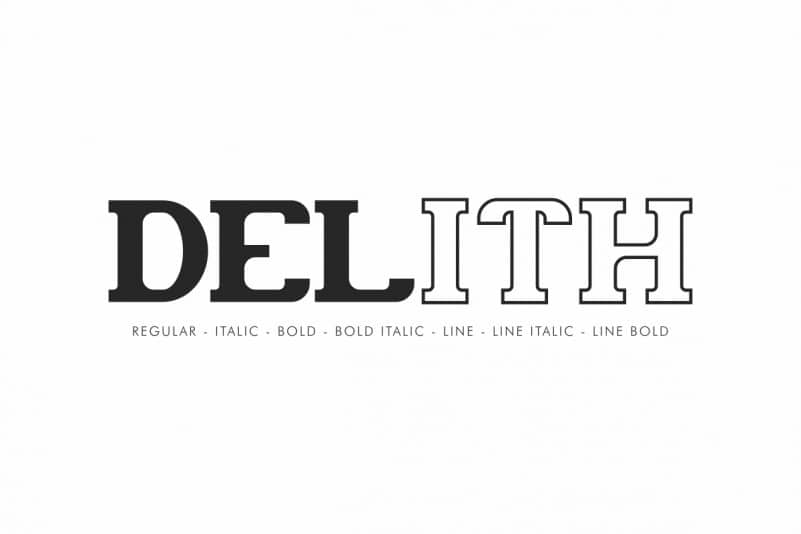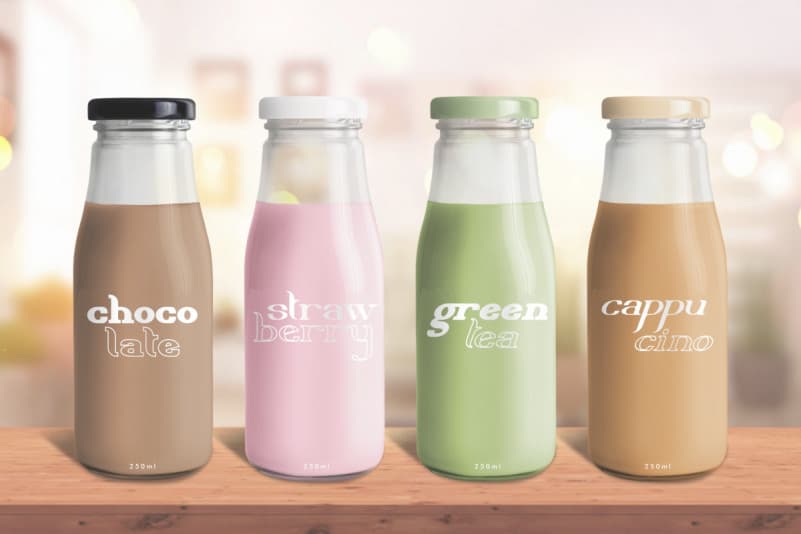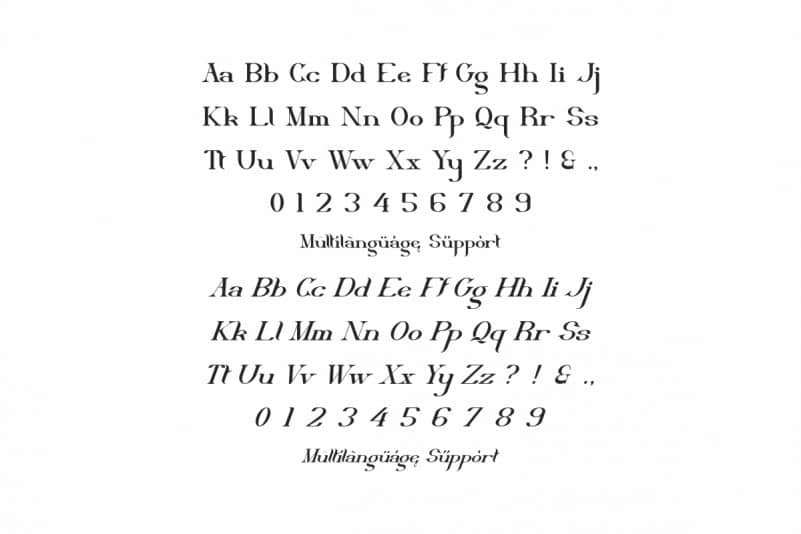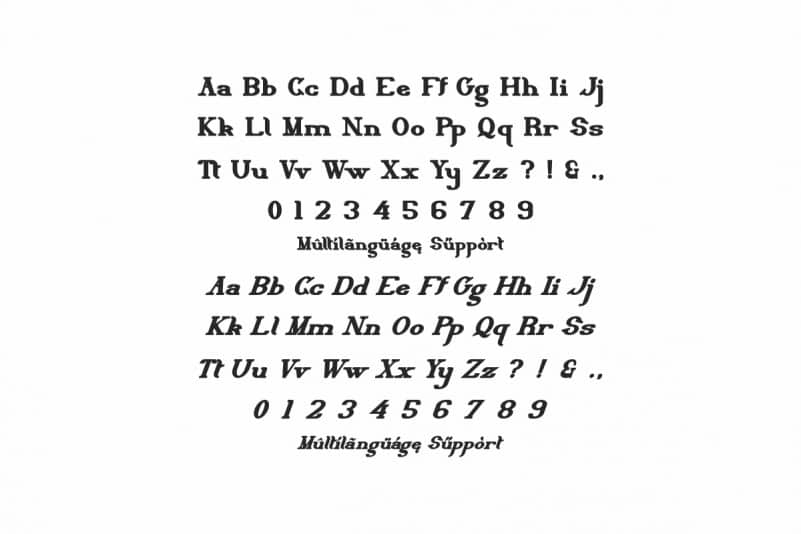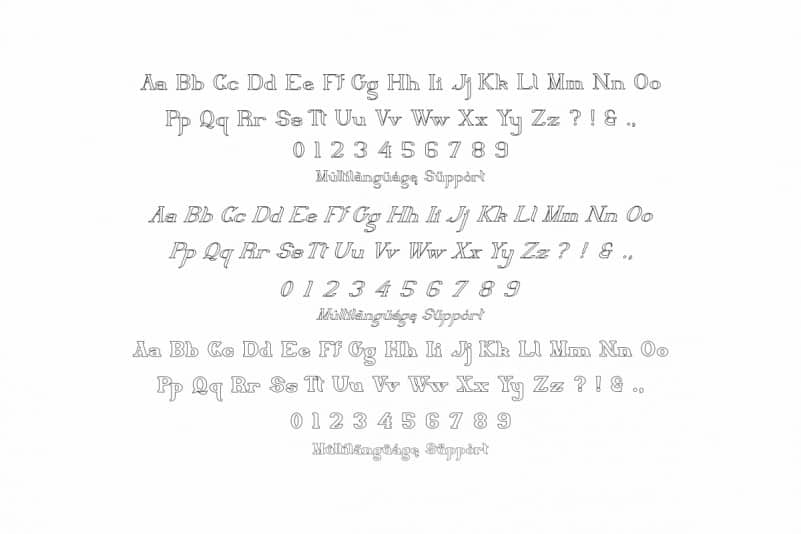
Delith Slab Serif Font will be great for any projects (require extended license) including : branding, logo, stationery, business card, signage, flyer, brochure etc.